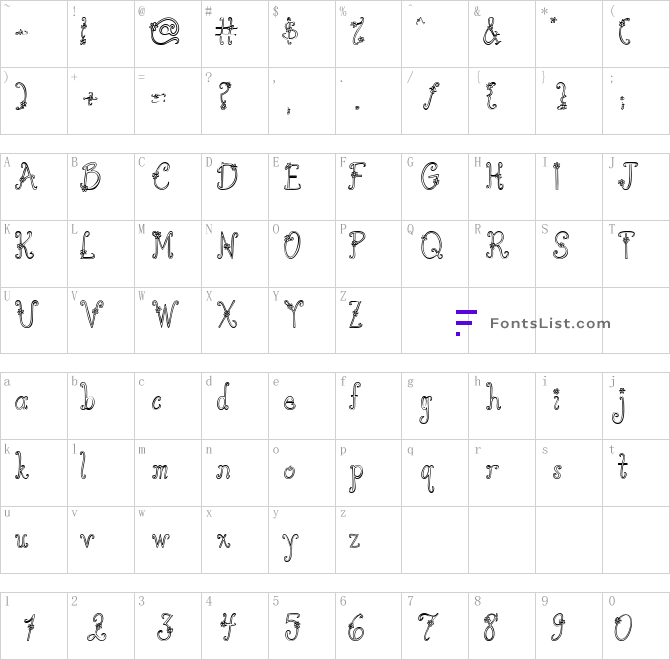
- Font Name:Austie Bost You Wear Flowers Ho
Austie-Bost-You-Wear-Flowers-Hollow.ttf is a very beautiful artistic font, Austie-Bost-You-Wear-Flowers-Hollow.ttf is widely used in the design and printing of various books and pictures,Austie-Bost-You-Wear-Flowers-Hollow.ttf has a strong visual impact,Austie-Bost-You-Wear-Flowers-Hollow.ttf is a commonly used font in newspapers, magazines and books, and is used in posters, e-commerce Poster design, store design, logo design, font design and other fields.Austie-Bost-You-Wear-Flowers-Hollow.